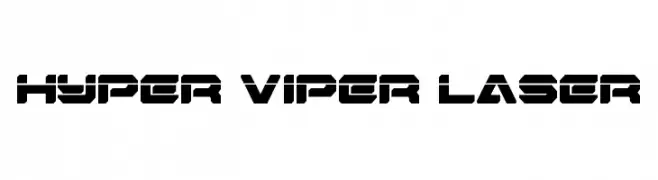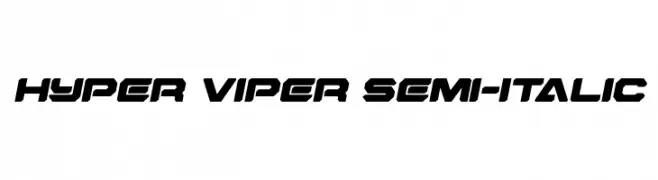
A bold, futuristic font with a gradient effect and sharp, angular design.
A bold, italicized font with gradient stripes and a futuristic style.
A bold, futuristic font with a halftone effect and geometric design.
A bold, italicized font with a futuristic halftone effect.
A bold, italicized font with a futuristic and dynamic style.
A bold, futuristic font with sharp angles and a stencil-like design.
A bold, futuristic italic font with sharp angles and a dynamic style.
A bold, futuristic font with sharp angles and a semi-italic slant.
A bold, futuristic font with angular, geometric shapes and a slight italic slant.
A bold, futuristic font with a semi-italic slant and angular design.